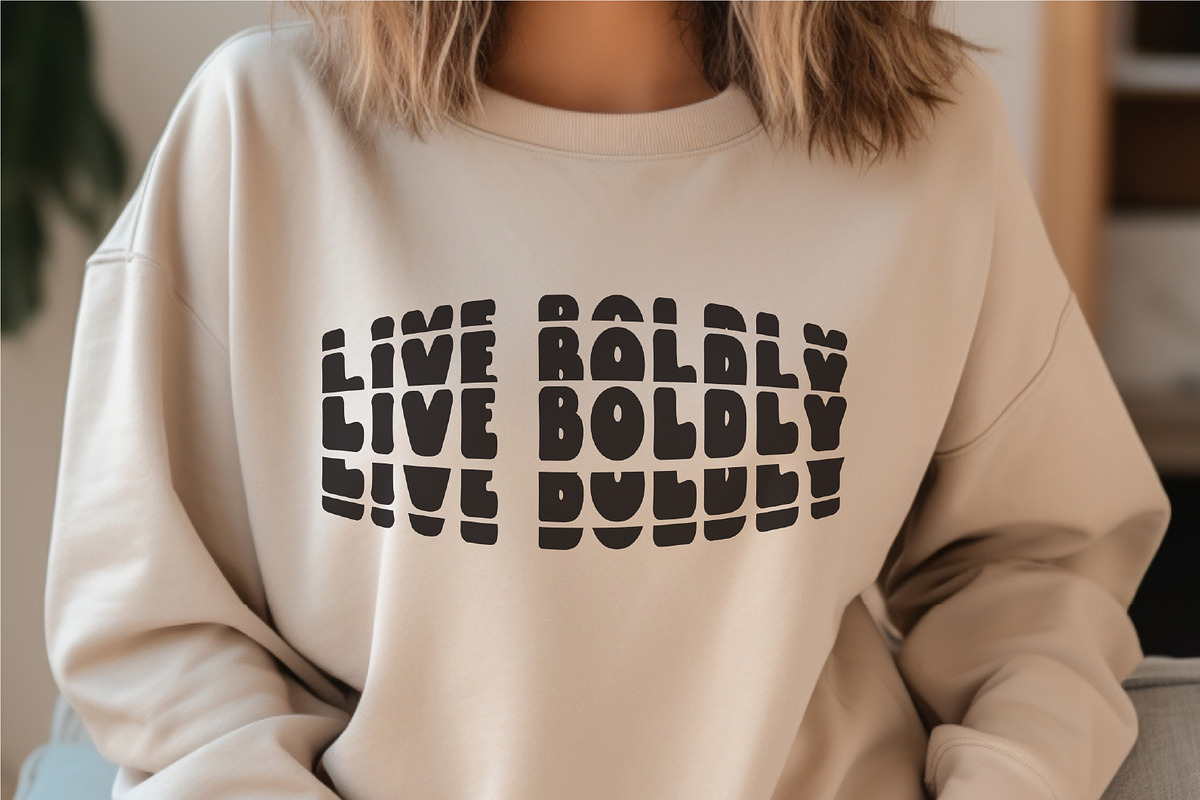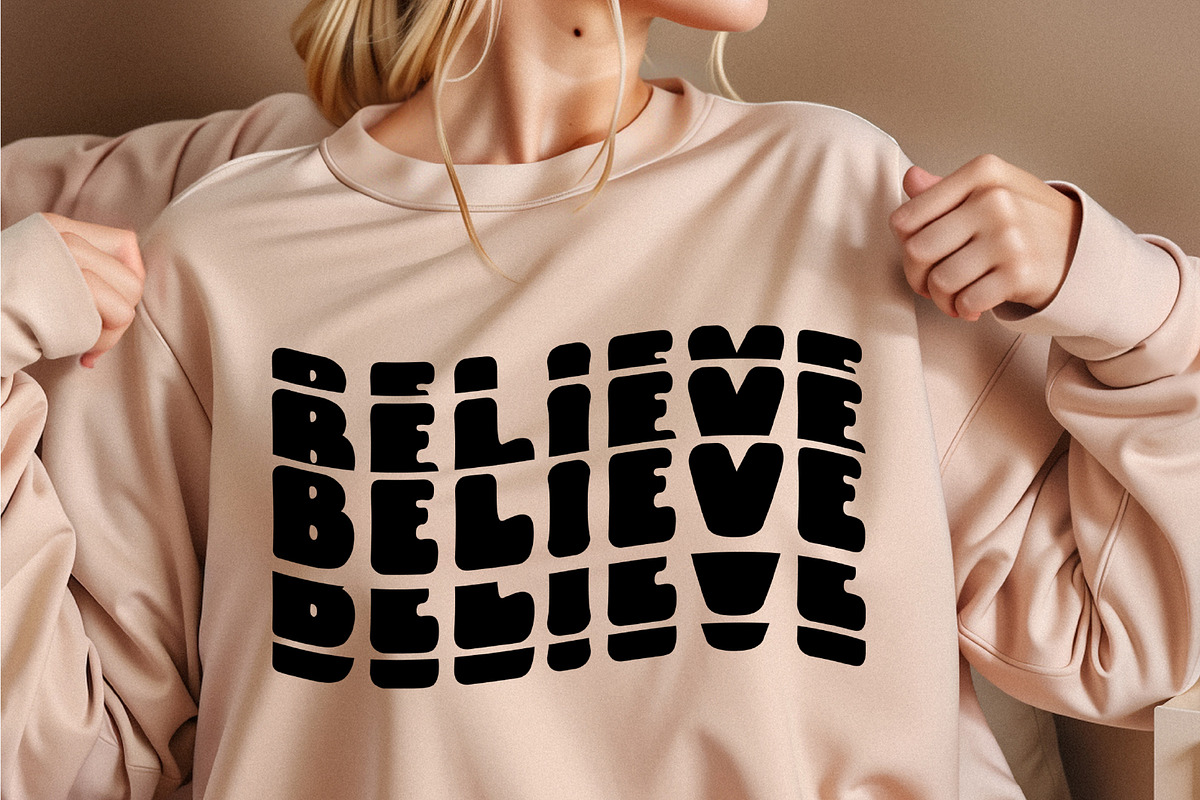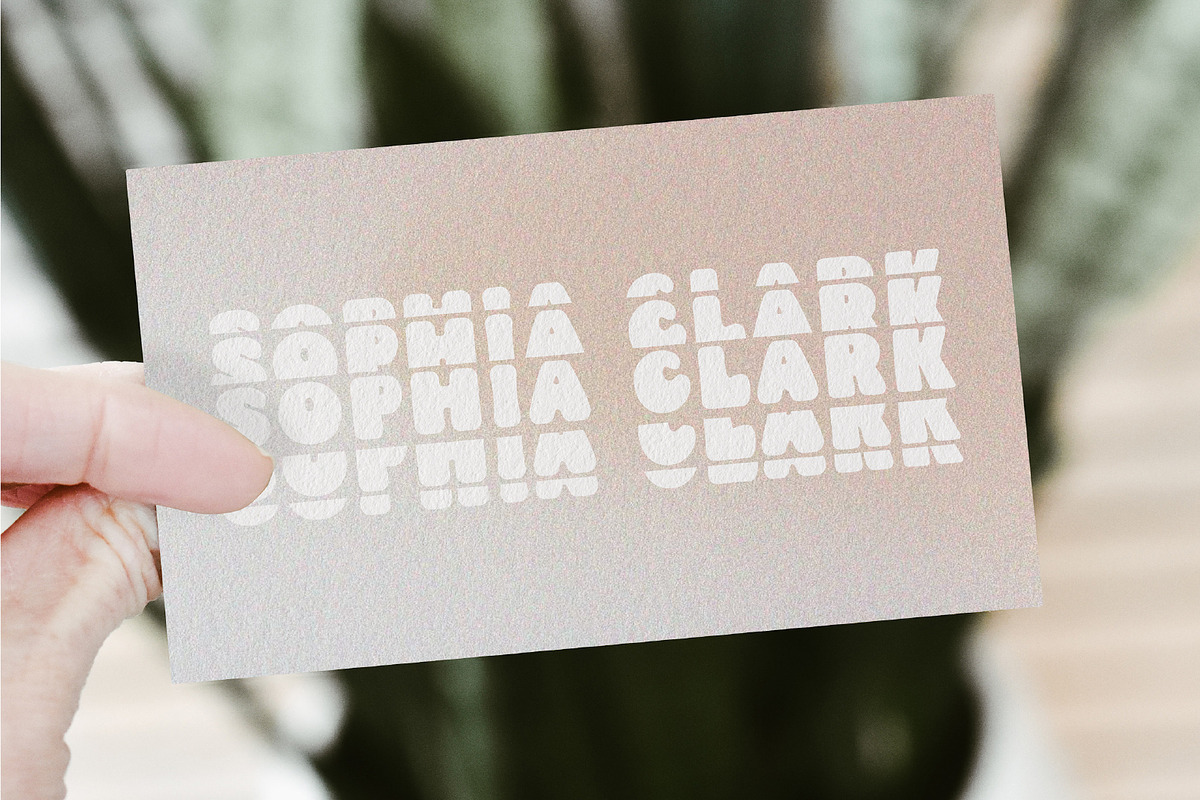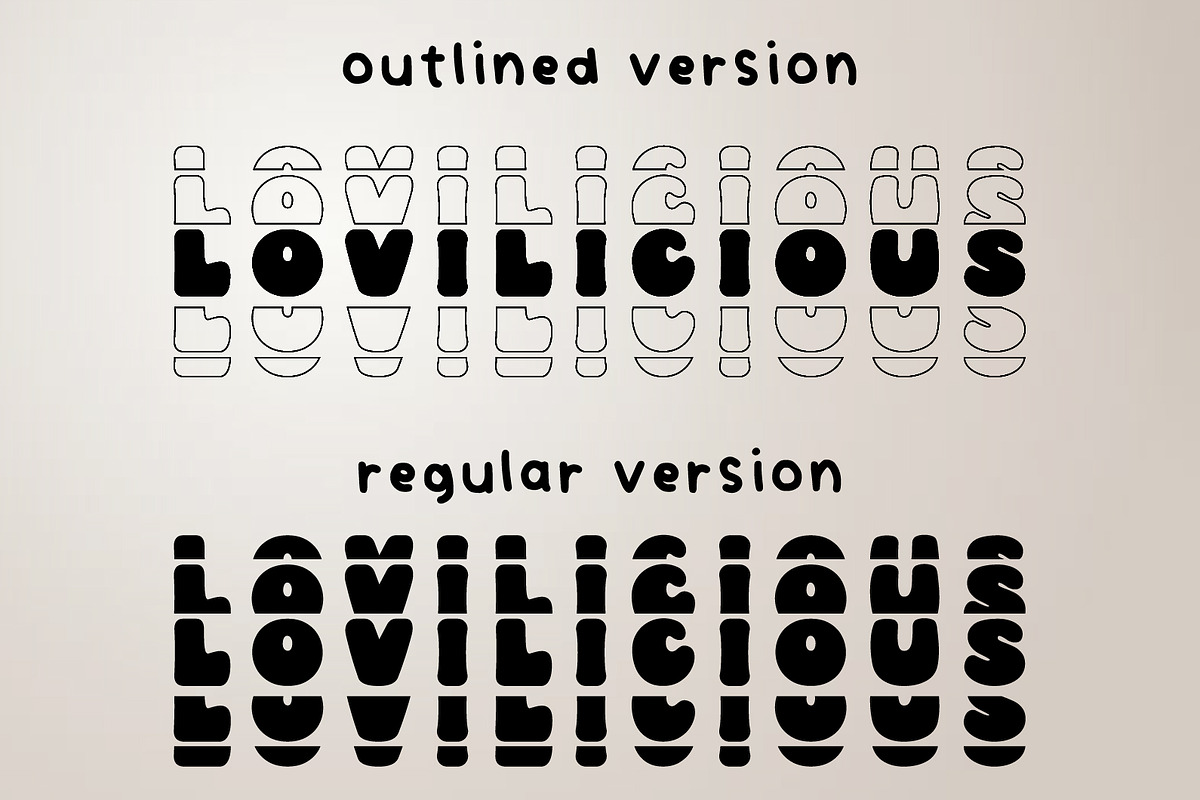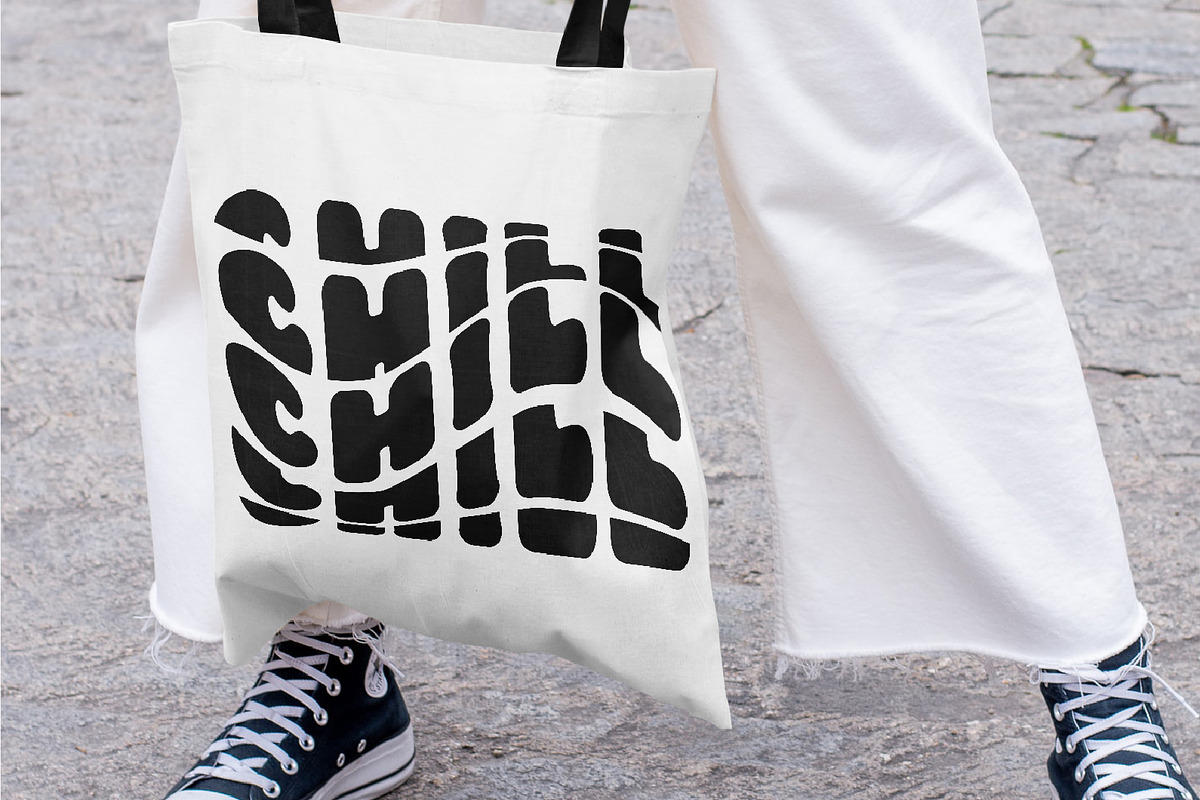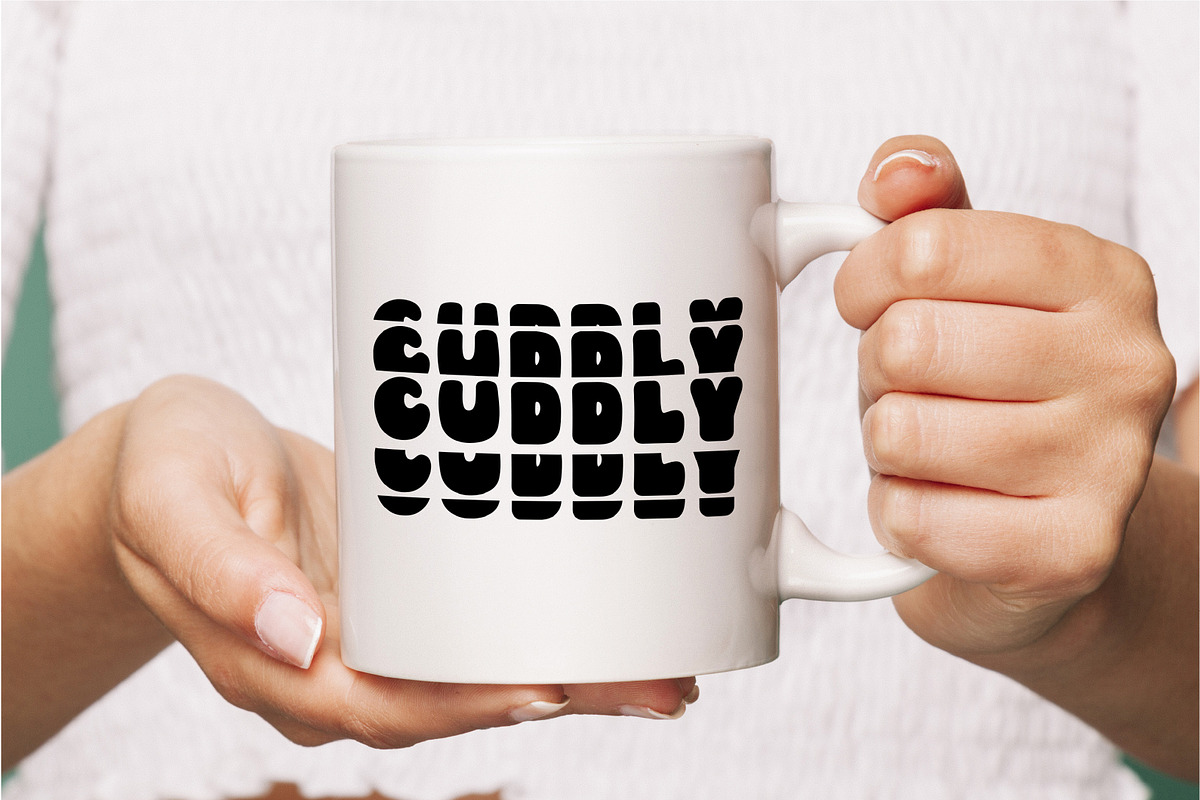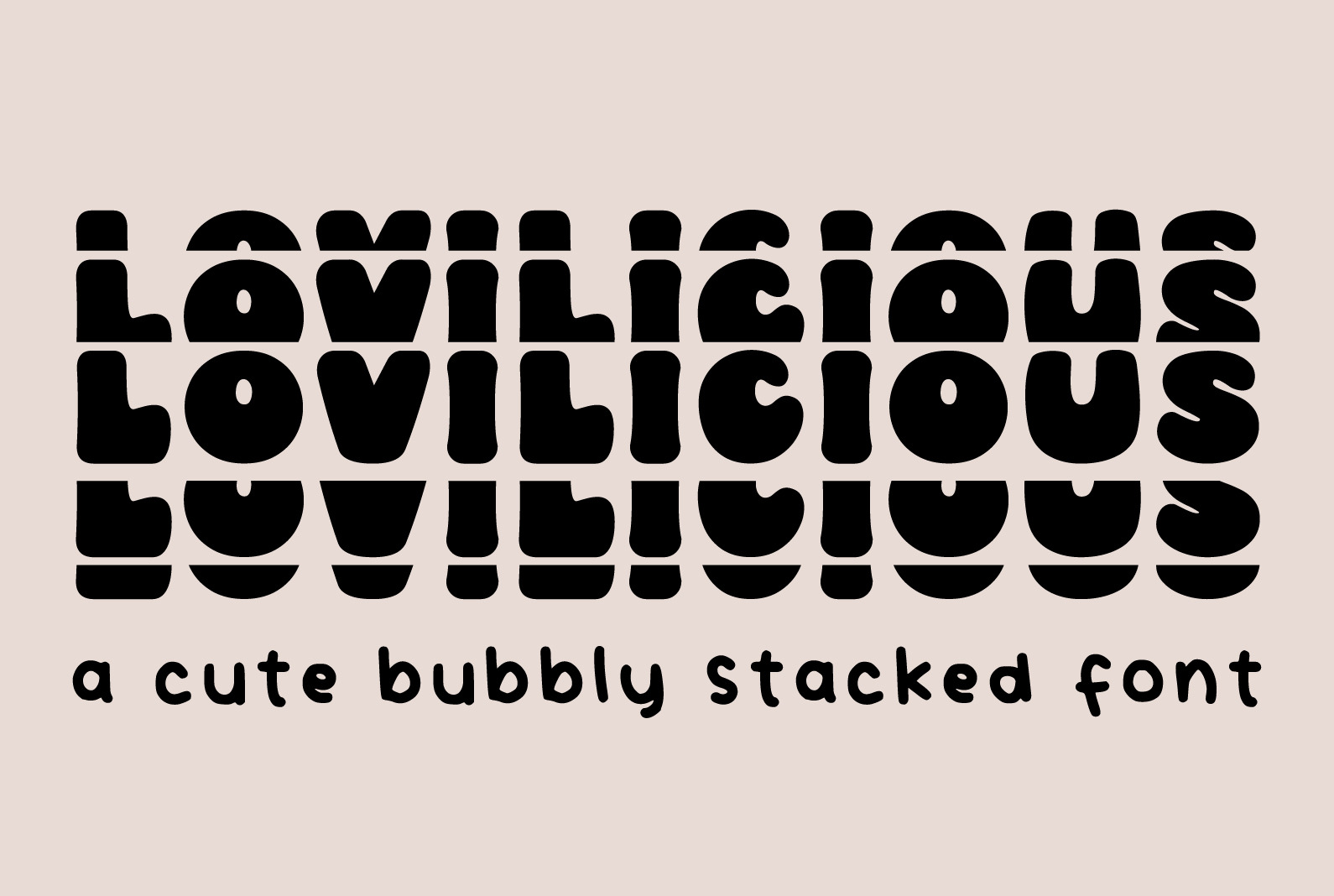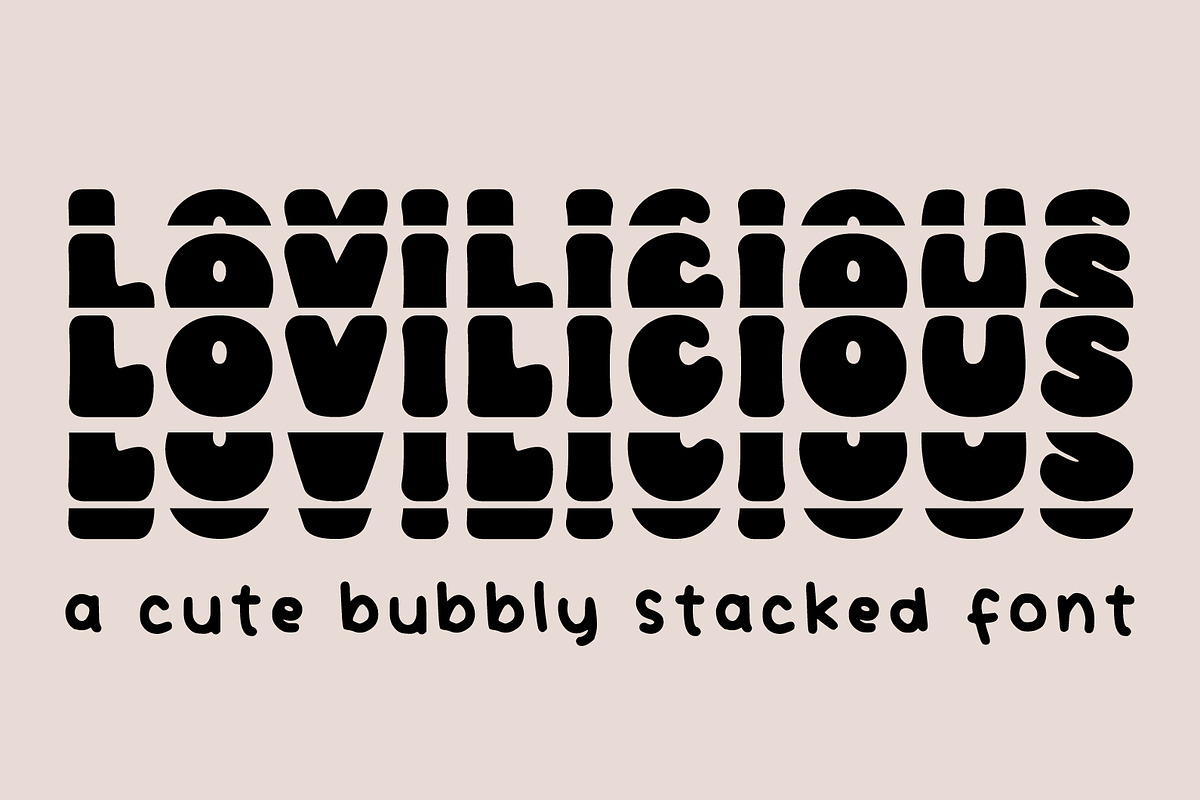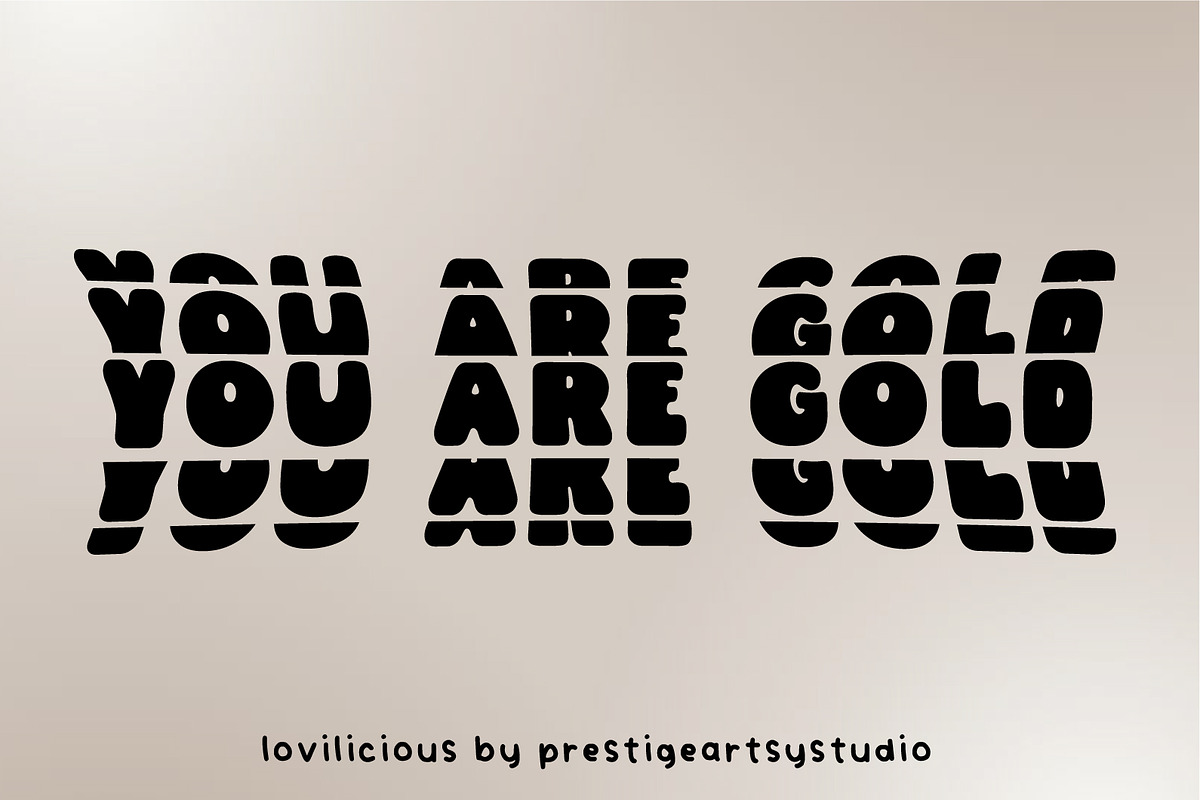
Lovilicious A Bubbly Stacked Font
Introducing "Lovilicious" with an Outline Variant – a fusion of modern style and elegance. Elevate your designs with captivating visual echoes and sleek outlined characters. Perfect for logos, posters, and more – make a lasting impression with this dynamic typeface.